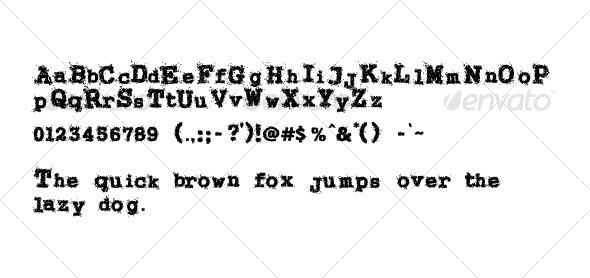
This is extremely highly detailed TrueType Font. It contains English letters and common symbols with numbers. It does not have any letter for other languages. It is best if you use it at size 24px and up (bigger = better), because of all the small grunge details it has. I should be a great font to use for flash, where shattered letters are required, you could animate each little piece of any symbol. Any grunge artwork will benefit with this font used.